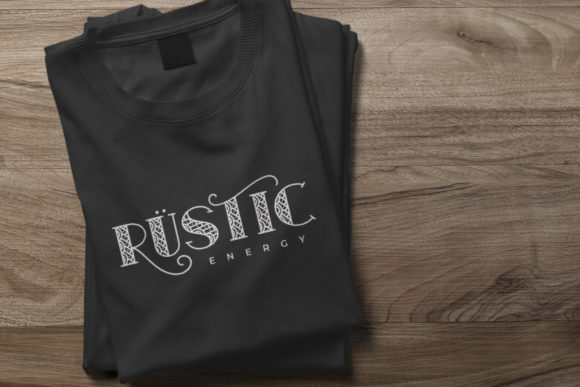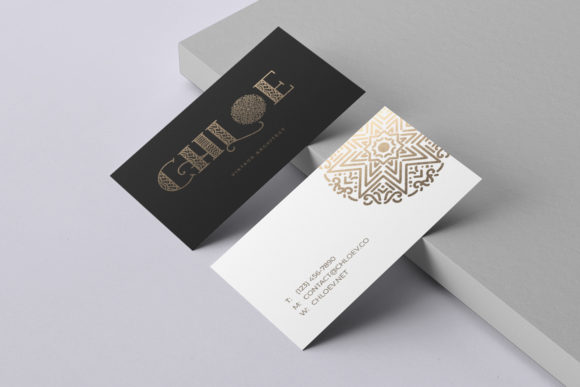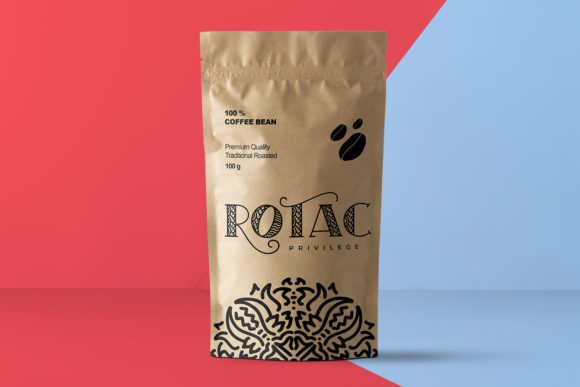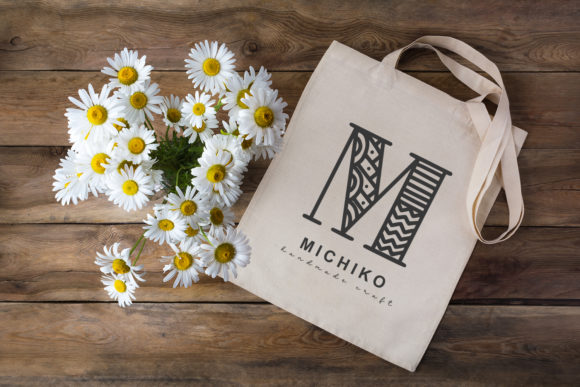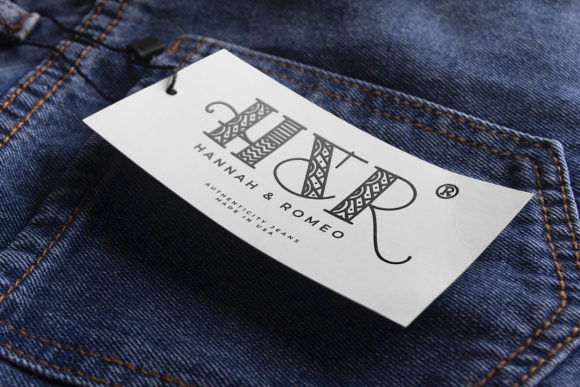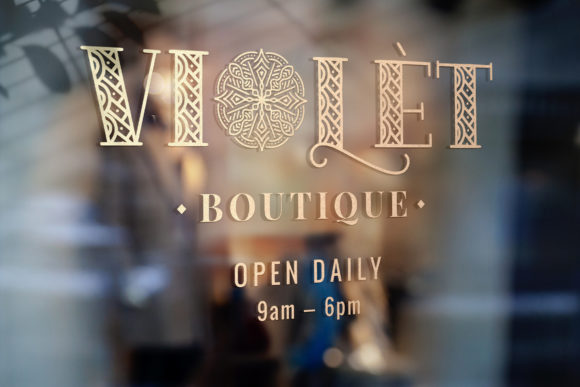
Aqilah Font: The Ultimate Serif Font for Stunning Designs
Aqilah is an incredibly unique and bold serif font that has taken the design world by storm. Its versatility and striking style have captured the hearts of designers and crafters alike, making it a go-to choice for creating spectacular designs. In this article, we’ll dive into the world of Aqilah Font, exploring its features, benefits, and uses, as well as provide tips on how to make the most of this incredible font.
What Makes Aqilah Font So Special?
Aqilah Font is a serif font that boasts a distinctive and bold style, setting it apart from other fonts in the market. Its unique characteristics make it an excellent choice for designers looking to add a touch of elegance and sophistication to their designs. Here are some of the key features that make Aqilah Font stand out:
- Unique and Bold Style: Aqilah Font features a bold and striking style that is sure to grab attention. Its serifs are carefully crafted to add a touch of elegance and sophistication to any design.
- Versatility: Aqilah Font is incredibly versatile, making it suitable for a wide range of design projects, from logos and branding to posters, flyers, and more.
- High Readability: Despite its bold style, Aqilah Font is highly readable, even at small sizes, making it perfect for body text and captions.
Benefits of Using Aqilah Font
So, why should you choose Aqilah Font for your next design project? Here are some of the benefits of using this incredible font:
- Adds Elegance and Sophistication: Aqilah Font’s unique style adds a touch of elegance and sophistication to any design, making it perfect for luxury brands, high-end products, and creative projects.
- Stand Out from the Crowd: With Aqilah Font, you can create designs that stand out from the crowd. Its bold style ensures that your message gets noticed, whether it’s on a poster, flyer, or social media graphic.
- Easy to Pair with Other Fonts: Aqilah Font is easy to pair with other fonts, making it a great choice for designers who like to experiment with different font combinations.
Uses of Aqilah Font
Aqilah Font is incredibly versatile, making it suitable for a wide range of design projects. Here are some of the most popular uses of this font:
- Logo Design: Aqilah Font is perfect for creating stunning logos that make a lasting impression.
- Branding and Identity: Use Aqilah Font to create a consistent brand identity that exudes elegance and sophistication.
- Posters and Flyers: Aqilah Font is a great choice for creating eye-catching posters and flyers that grab attention.
- Social Media Graphics: Use Aqilah Font to create stunning social media graphics that stand out from the crowd.
Tips for Using Aqilah Font
To make the most of Aqilah Font, here are some tips to keep in mind:
- Experiment with Font Sizes: Aqilah Font looks great at various font sizes, so don’t be afraid to experiment to find the perfect size for your design.
- Pair with Other Fonts: Aqilah Font pairs well with other fonts, so try combining it with different fonts to create a unique look.
- Use it for Headings and Titles: Aqilah Font is perfect for headings and titles, so use it to add a touch of elegance and sophistication to your design.
Aqilah Font is an incredibly unique and bold serif font that is sure to take your designs to the next level. Its versatility, elegance, and sophistication make it a great choice for designers and crafters looking to create stunning designs. With its high readability, unique style, and ease of use, Aqilah Font is a must-have for any designer looking to add a touch of luxury and sophistication to their designs.